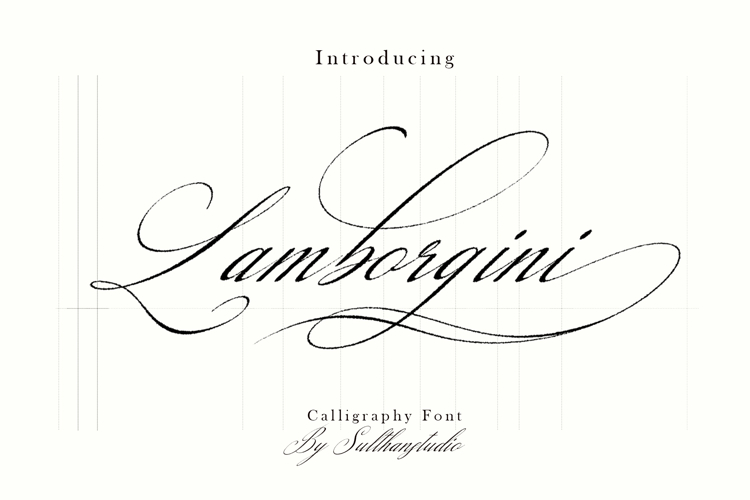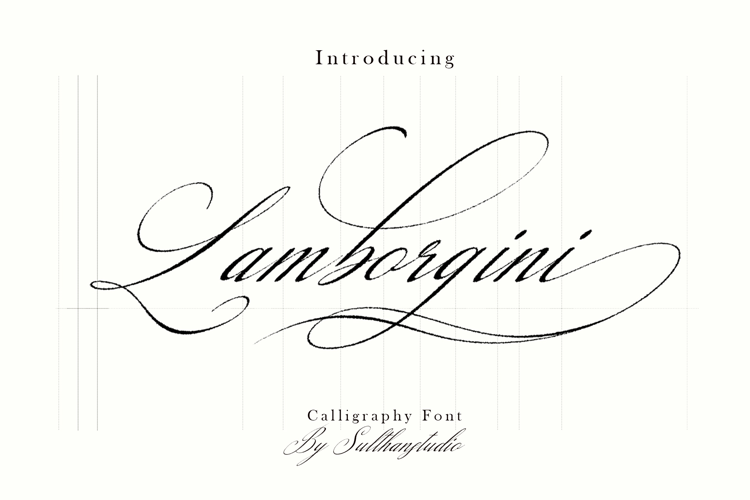
Lamborgini
"The Lamborgini font is a Copperplate-style calligraphy typeface that combines classic handwriting aesthetics with digital precision. Its main characteristics lie in sharp line contrasts, dynamic slants, and luxurious flourishes on capital letters and letter tails. Visually, this font represents exclusivity and elegance, making it very effective for luxury branding."The Lamborgini font captures the soul of traditional Pointed Pen Calligraphy. In manual calligraphy, this effect is achieved through physical pressure; as the nib is pressed down, it opens to release more ink, creating a "swell" or thick stroke. The digital rendering of this font meticulously mimics this pressure-sensitive variation, providing a rhythmic cadence to the visual flow.